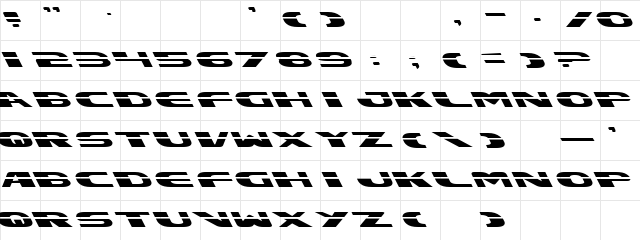
Excelerate Left Expanded
Design Context for Excelerate Left Typeface
Excelerate Left is a composed and adaptable typeface that performs quietly and consistently across a wide range of design contexts.